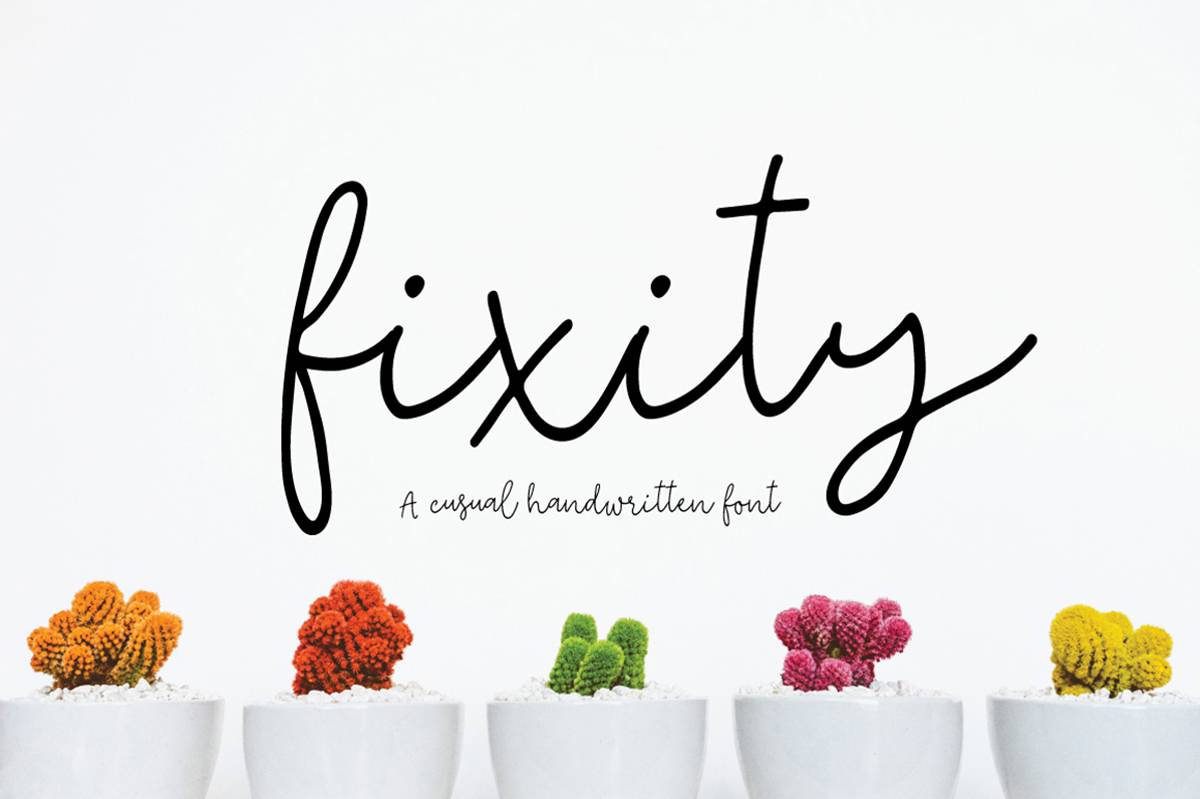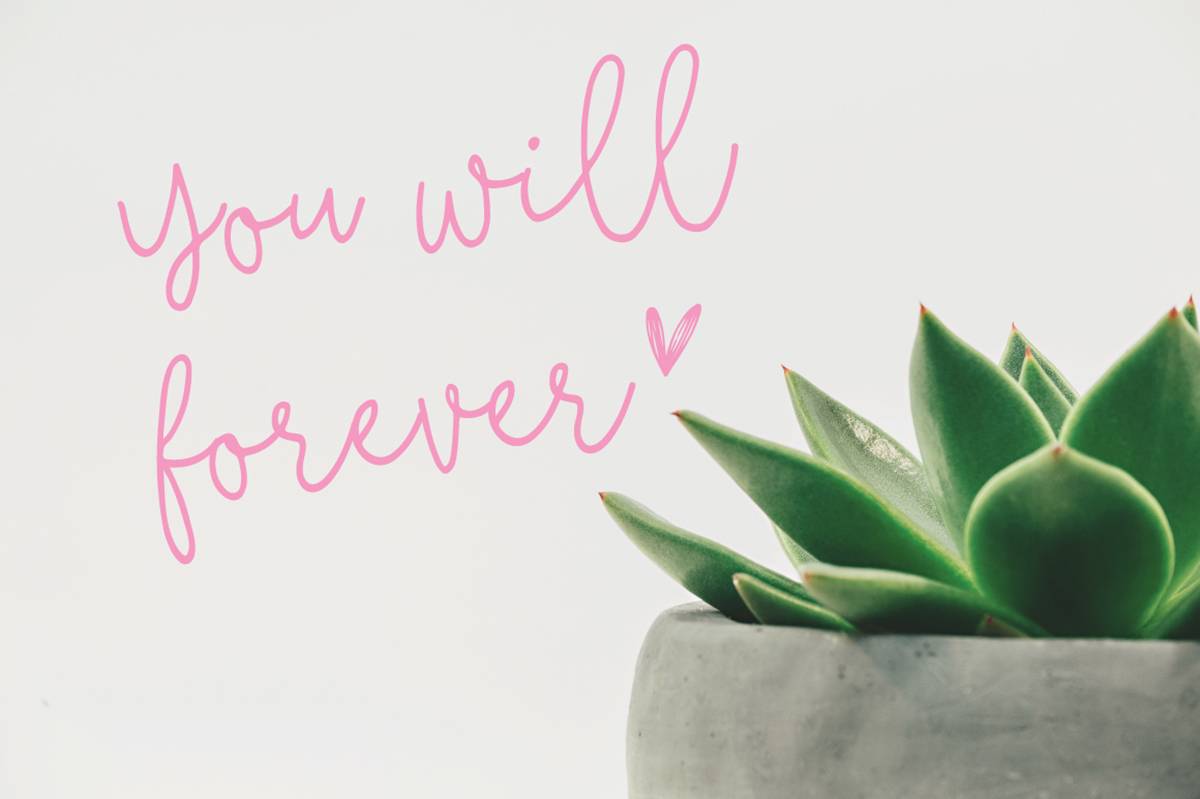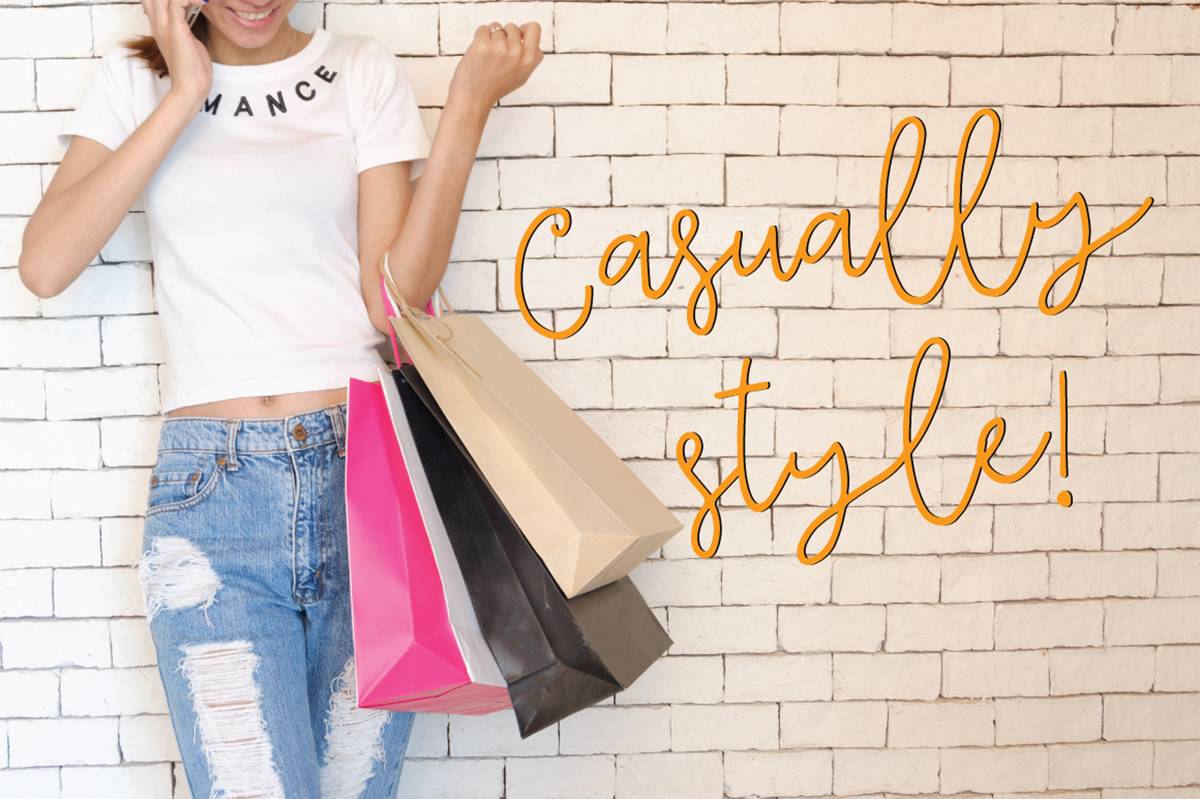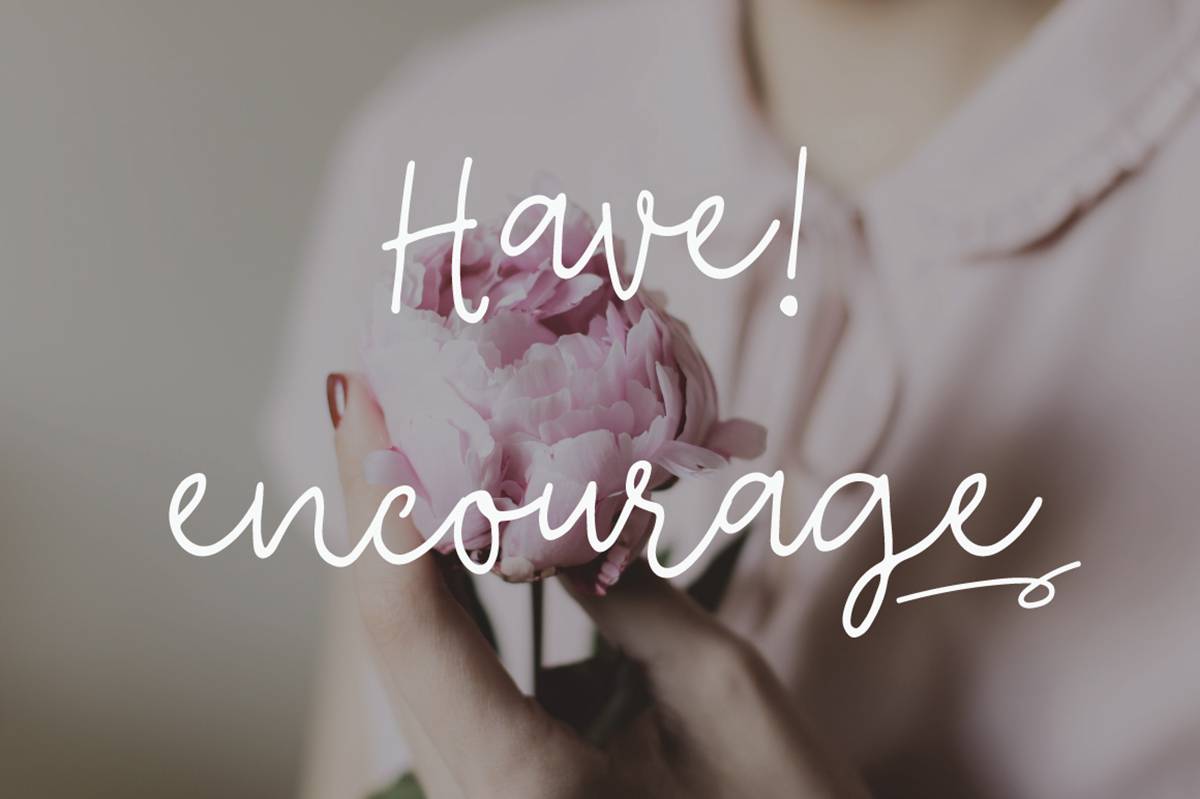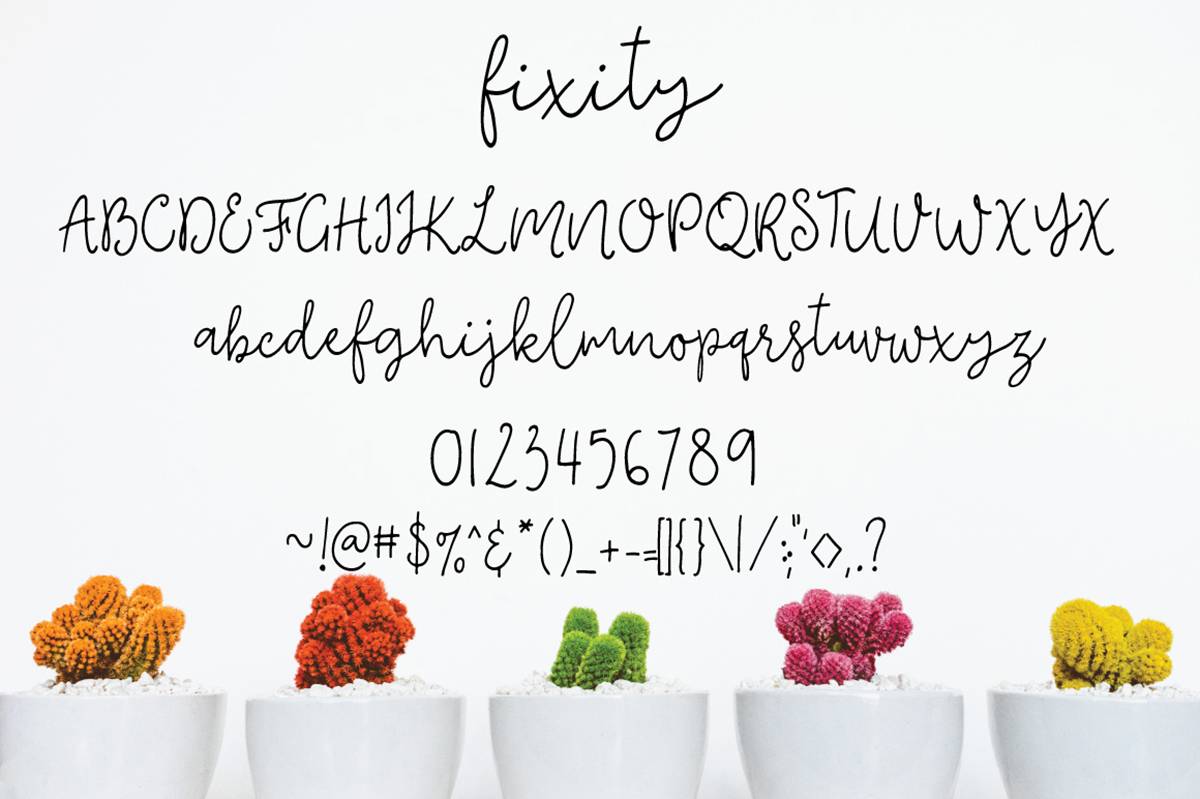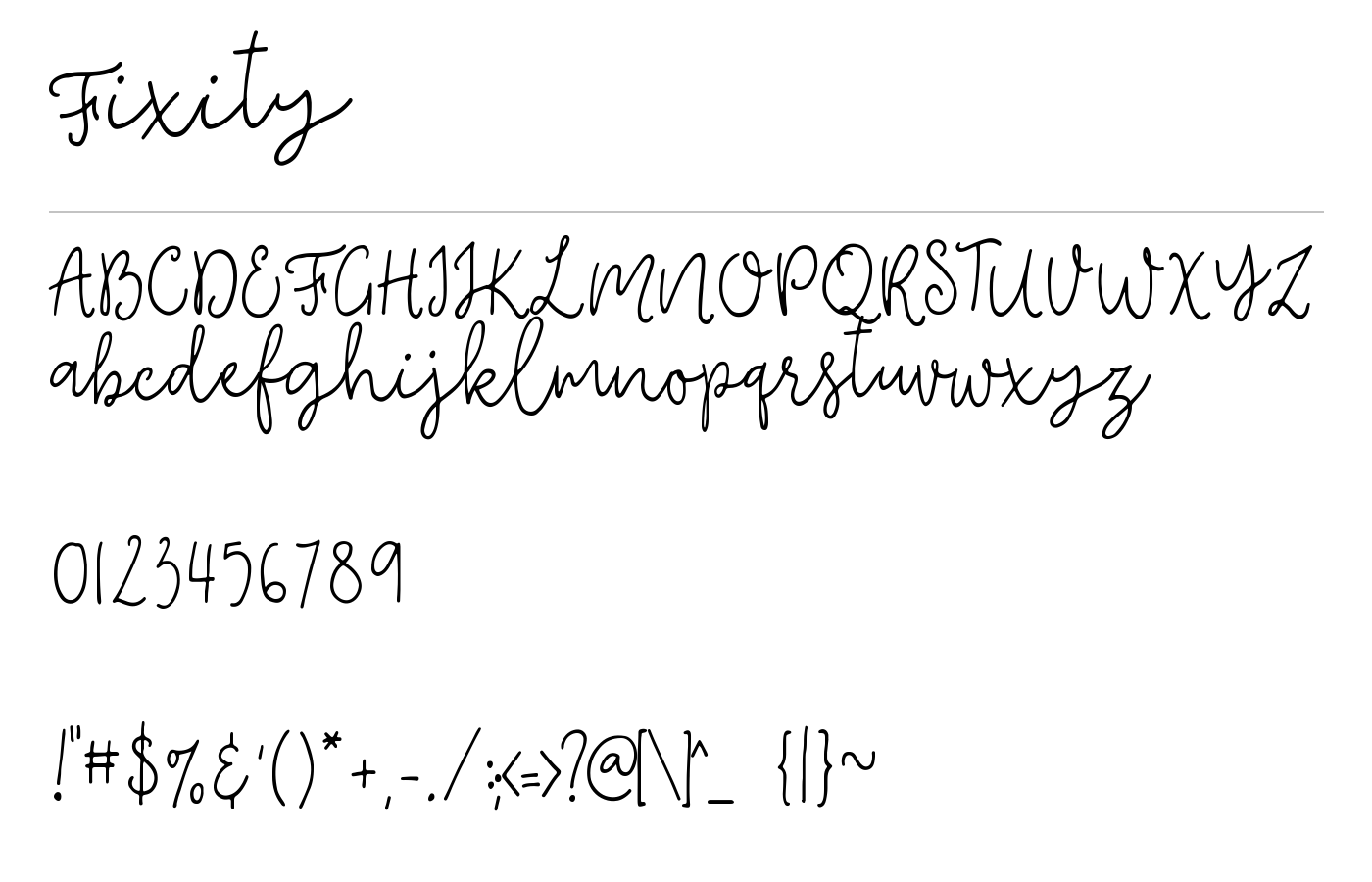
Fixity Font is a casual, handwritten script with a light and delicate feel, featuring tall, slender letterforms and smooth, flowing curves. Its informal yet elegant style makes it perfect for personal branding, invitations, and creative projects that seek a friendly and approachable vibe. This font works well in headings or accents where a warm, human touch is desired.
Fixity Font
About Fixity Font